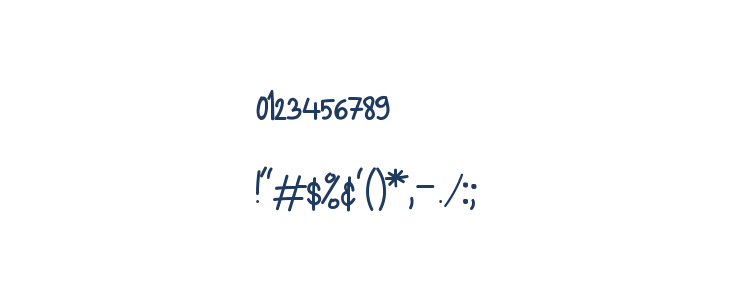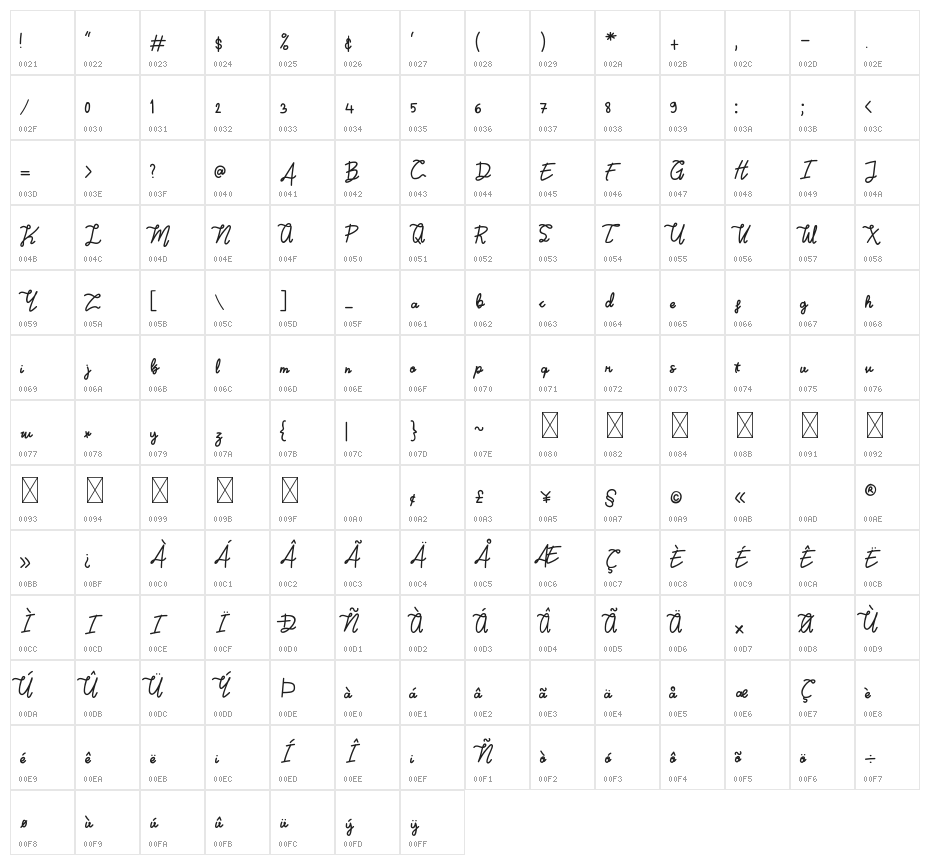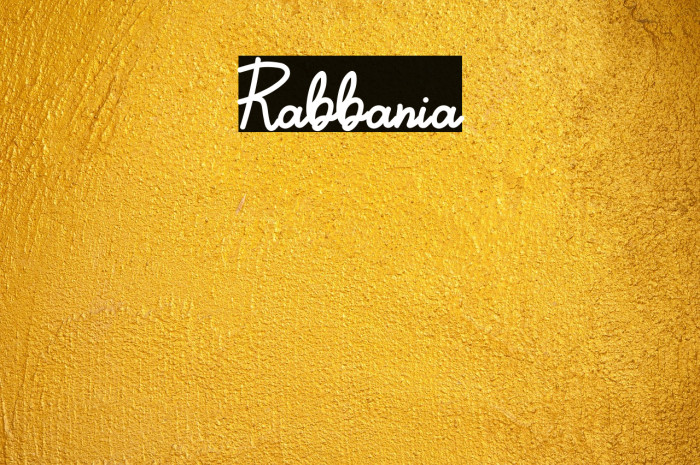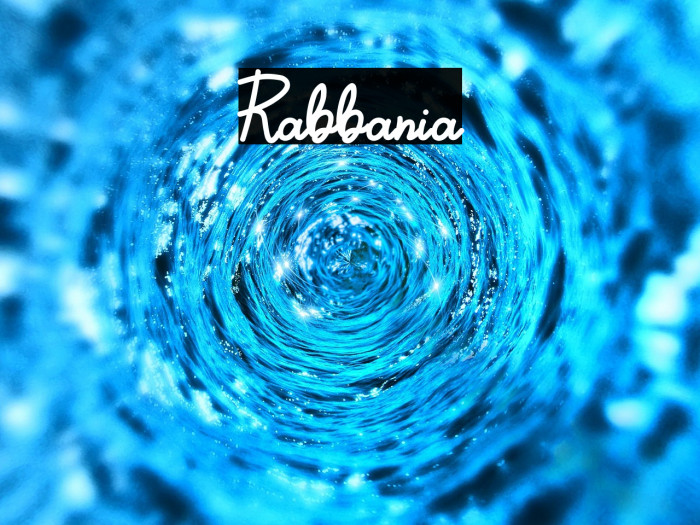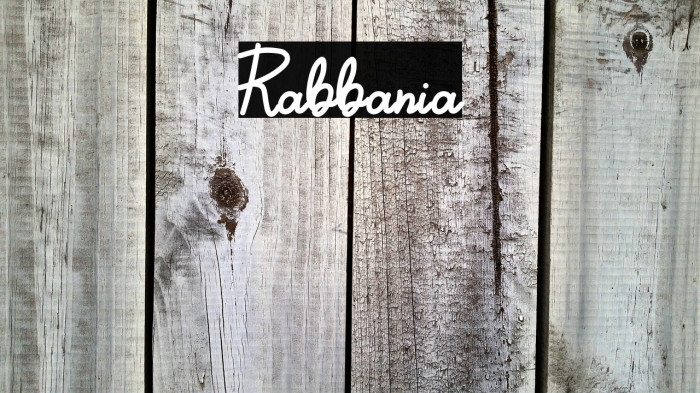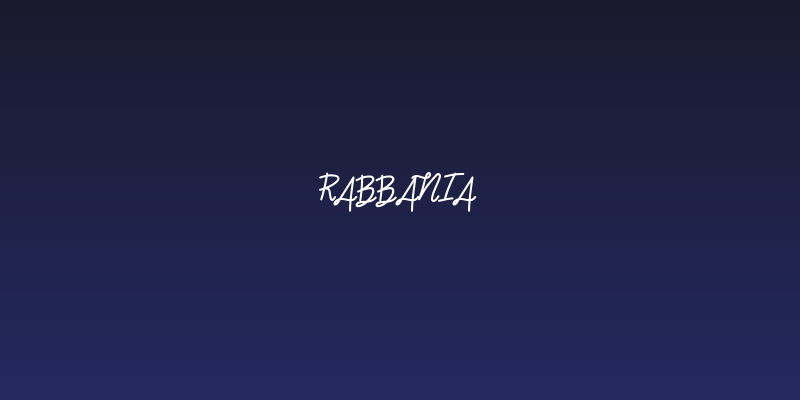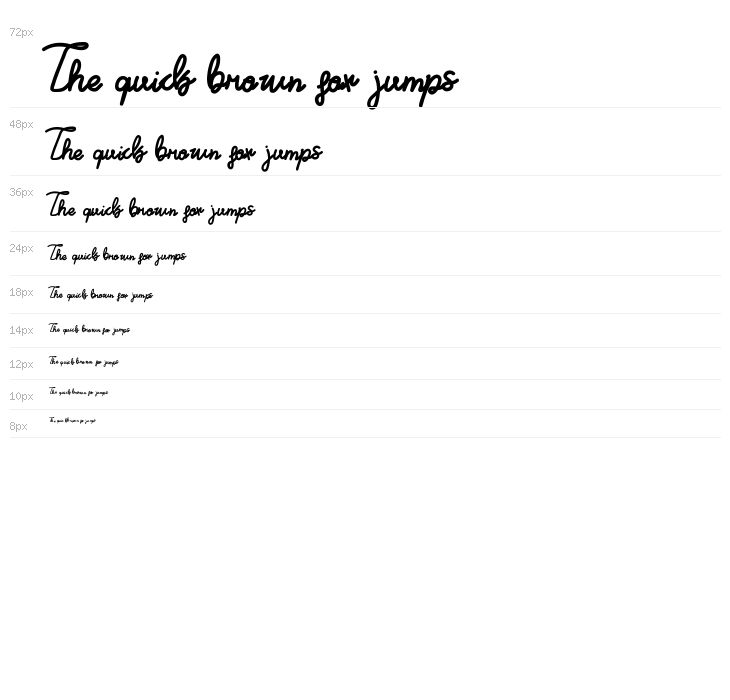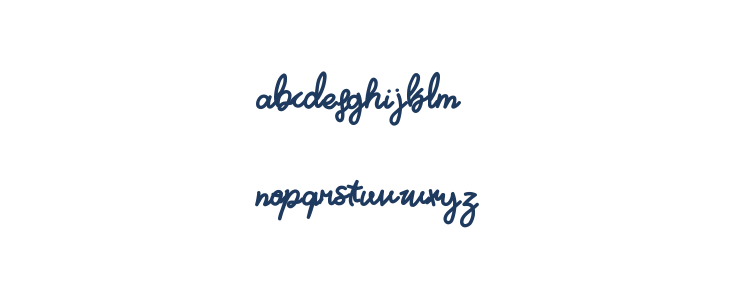
Rabbania Font
Rabbania Description
This font exhibits a flowing, cursive style that mimics natural handwriting with a touch of elegance. The characters are interconnected, creating a seamless and fluid appearance. The uppercase letters are slightly larger and more ornate, while the lowercase letters maintain a consistent, smooth flow. Numbers and special characters are integrated with the same cursive flair, ensuring uniformity across all elements. The strokes are moderately thick, providing good readability while maintaining a stylish look. This font is ideal for projects that require a personal, handwritten touch.